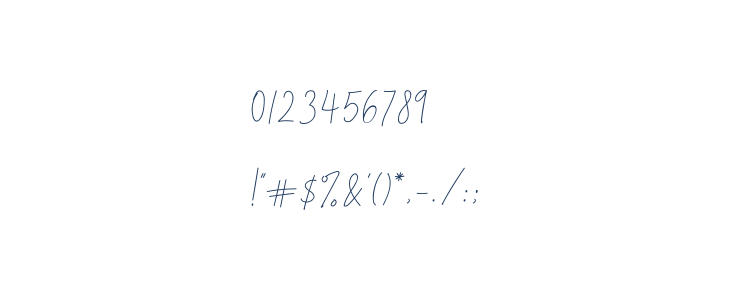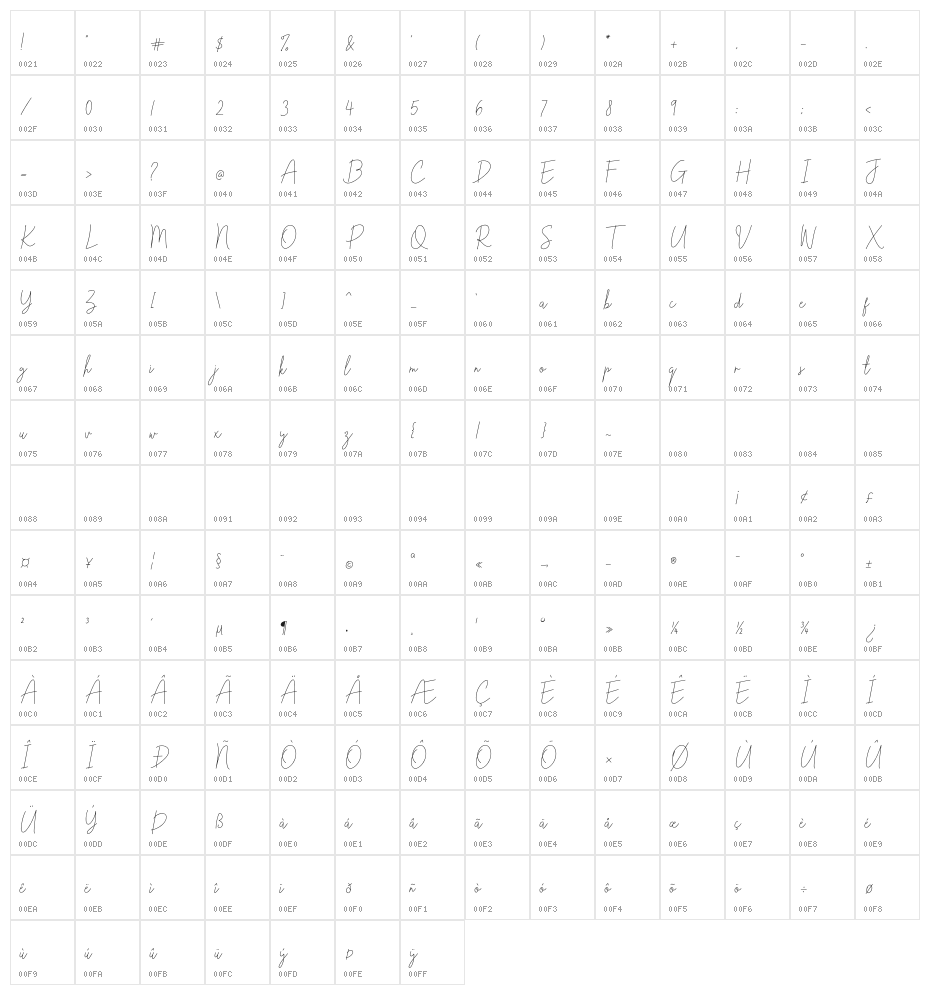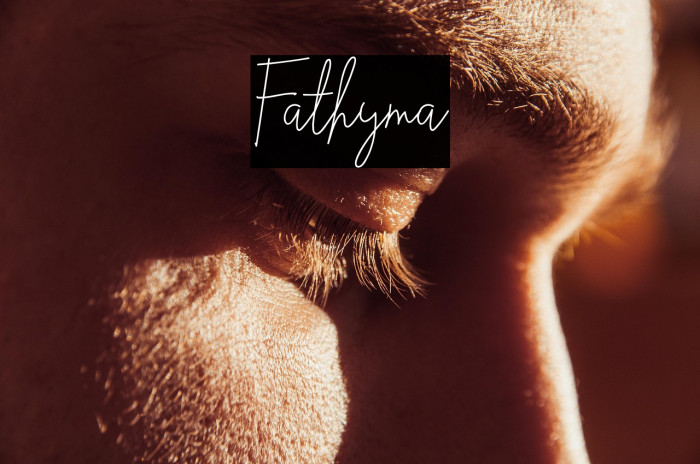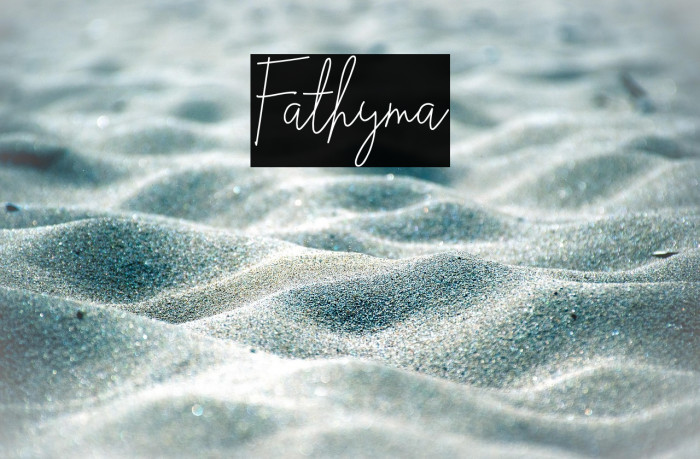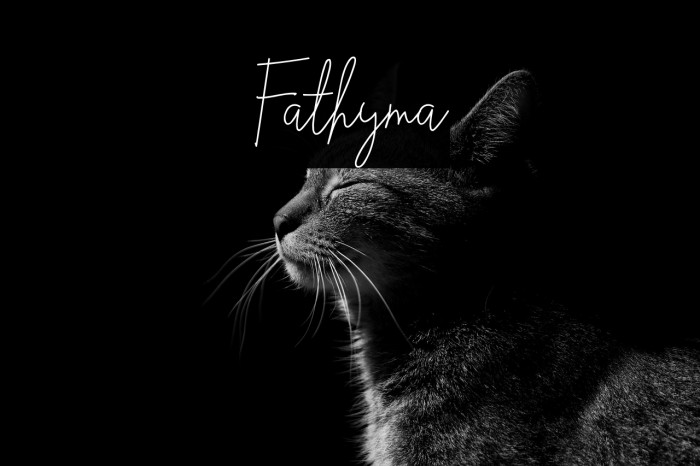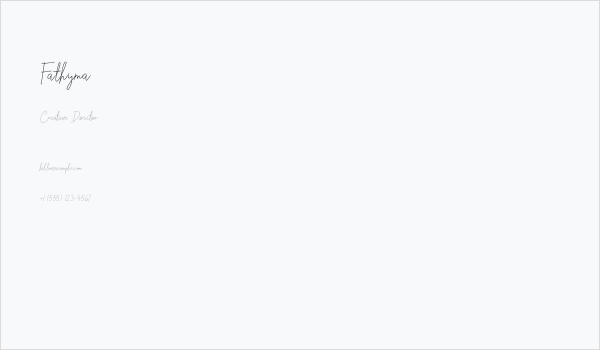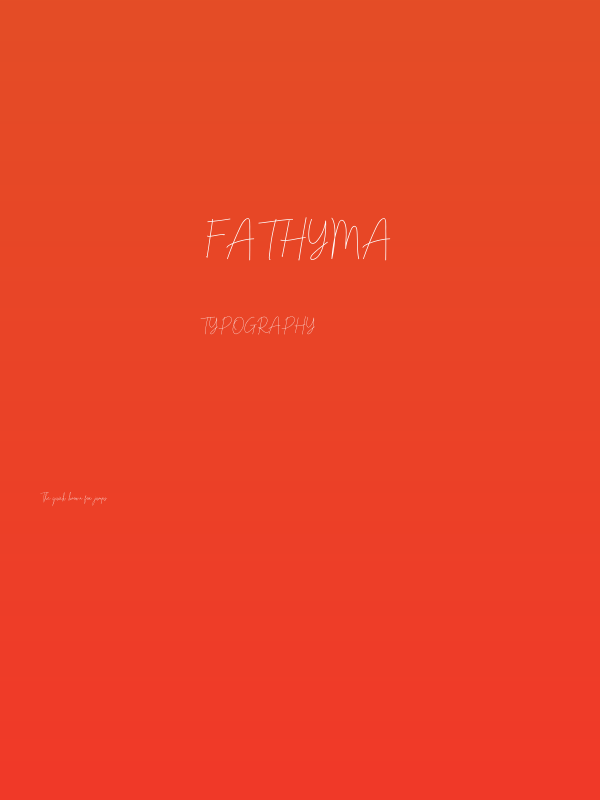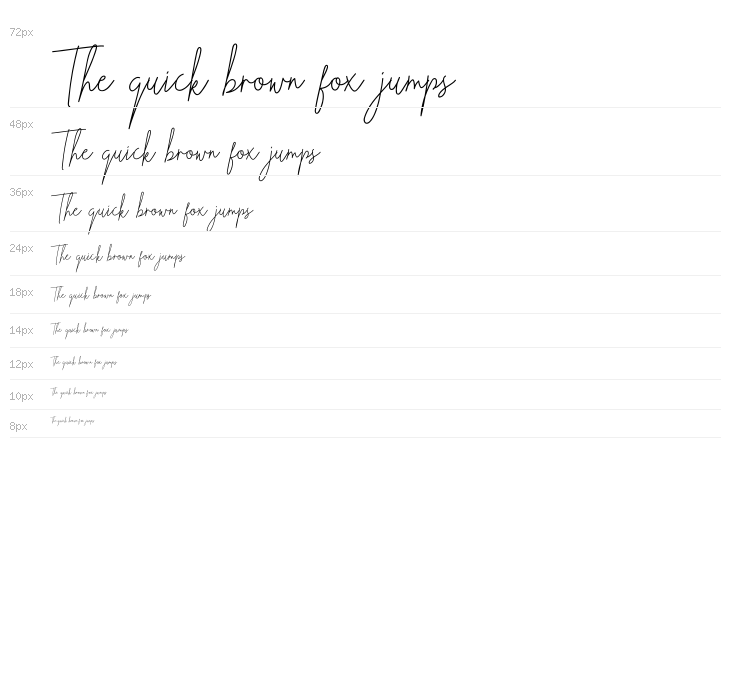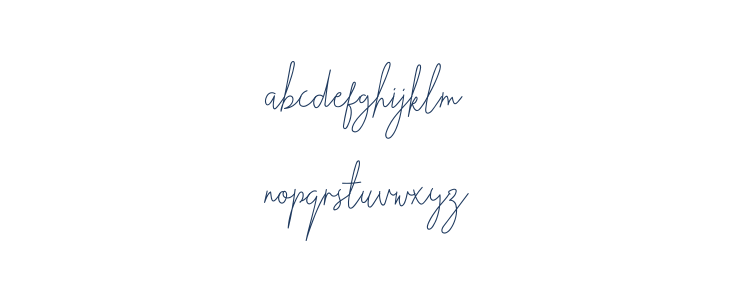
Fathyma Font
Fathyma Description
This font features a delicate, handwritten style that exudes elegance and sophistication. The letters are thin and slightly slanted, giving a sense of fluidity and motion. The uppercase characters are tall and narrow, while the lowercase letters maintain a consistent flow with subtle curves. Numbers and special characters are designed to complement the overall aesthetic, maintaining the same thin and graceful strokes. This font is ideal for projects that require a personal touch, such as invitations, greeting cards, or branding materials that aim to convey a sense of elegance and refinement.
| Overall Style | Elegant and Sophisticated |
| Use Case | Headlines, Invitations, Personal Branding |
| Proposed Projects | Ideal for wedding invitations, personal branding, greeting cards, and elegant stationery. |